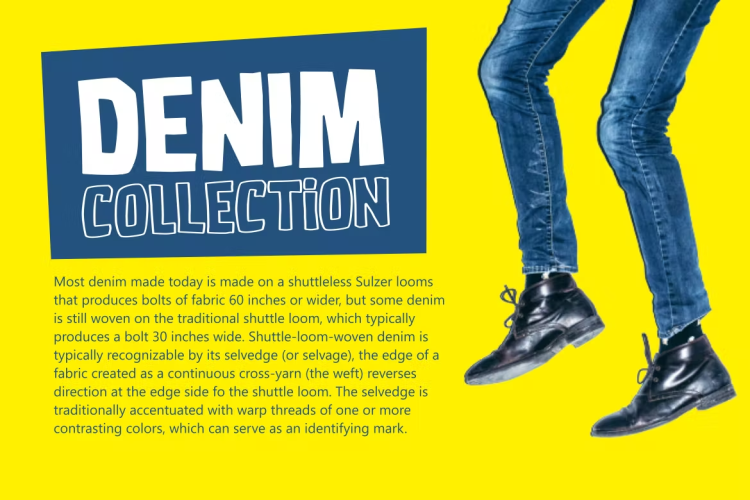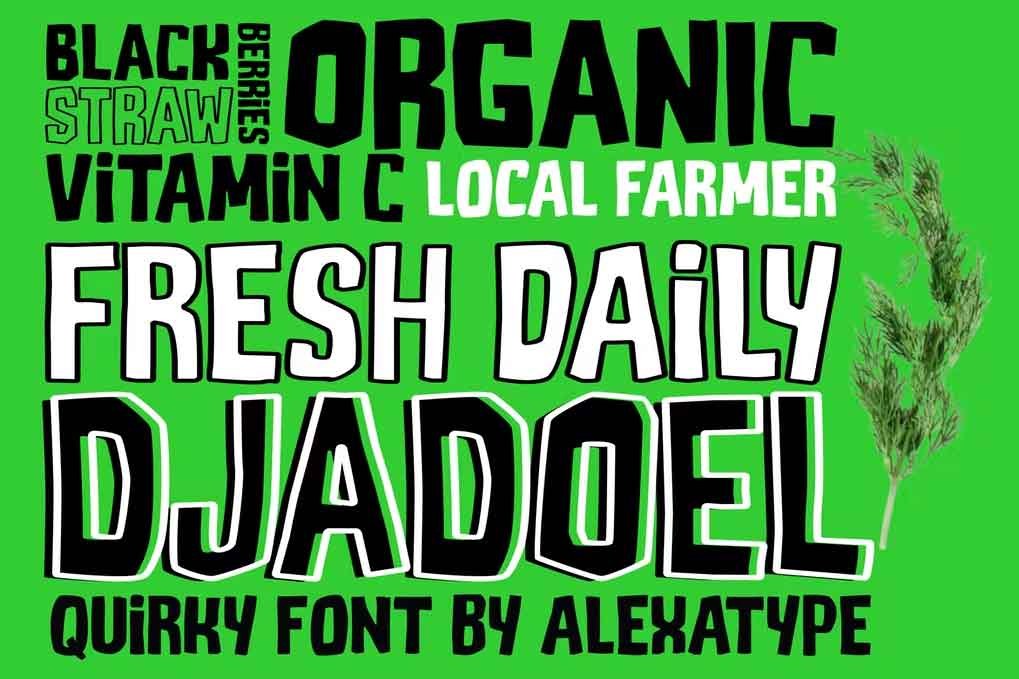
DJADOEL Quirky All Caps Font
DJADOEL is a quirky font that bring good old memories and smiles to our face. Comes in 2 styles, reguler and outline. The subtle ligature between uppercase and lowercase will bring a natural touch in every project that you have.
DJADOEL Quirky All Caps Font is a Sans Serif Fonts font that brings a professional and versatile look to your projects. DJADOEL is a quirky font that bring good old memories and smiles to our face.